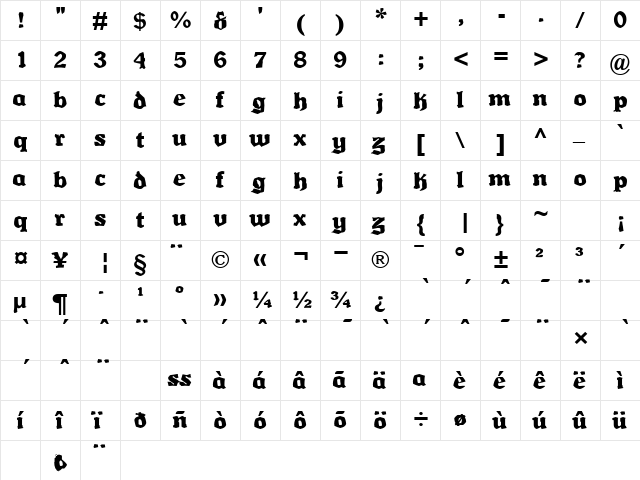
Multikultur ExtraBold
Design Context for Multikultur Typeface
Multikultur takes a measured approach to typography — its balanced proportions and neutral character make it a reliable workhorse for both digital and print work. Its bold stroke weight gives it real presence on the page.